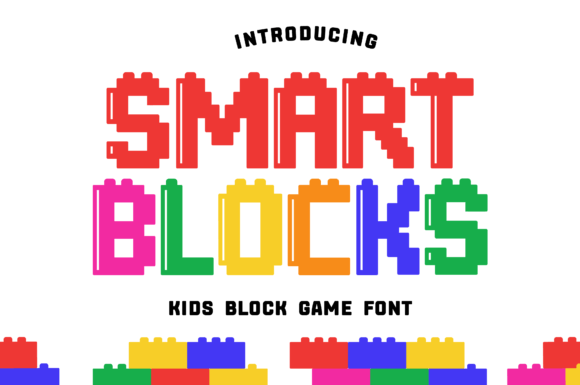
Smart Blocks: The Ultimate Display Font for Modern Design
In the crowded world of typography, finding a free Display font for Fonts that doesn't compromise on quality is rare. Smart Blocks manages to bridge the gap between raw geometric shapes and sophisticated design. It is not just another generic sans-serif; it is a tool designed to bring each of your creative ideas to the highest level. Below, we will dive deep into why this font deserves a spot in your toolkit and how you can utilize it effectively.
Design & Style Analysis
The visual personality of Smart Blocks is defined by its structural integrity and clean lines. Unlike many other fonts in the best Display fonts for use case categories that rely on excessive flair, this typeface relies on perfect proportions. The letterforms are constructed with a consistent stroke width that gives them a solid, reliable presence on any medium.
Letterform Geometry and Weight
At first glance, the weight of Smart Blocks appears uniform, but a closer inspection reveals subtle nuances. The curves are tight, and the terminals are squared off, creating a distinctive character that separates it from softer geometric alternatives. This specific weight distribution makes it an excellent choice for headlines where readability must be maintained even at large sizes.
Spacing and Rhythm
One of the most critical aspects of any professional Fonts font is its spacing. Smart Blocks features generous tracking that prevents letters from feeling cramped. This breathing room allows the text to command attention without overwhelming the viewer. When used correctly, the rhythm of the words creates a visual flow that guides the eye naturally across the page.
Best Uses for Smart Blocks
Understanding where to apply a typeface is just as important as knowing how to style it. Smart Blocks is versatile enough to handle various applications, making it a staple for many creative professionals.
Smart Blocks for Logo Design and Branding
When building a brand identity, you need a mark that sticks. Using Smart Blocks for logo design provides a strong foundation because of its bold, unmistakable shape. It works exceptionally well for tech startups, construction firms, or urban lifestyle brands. Furthermore, Smart Blocks for branding ensures consistency across all touchpoints, from business cards to billboards, maintaining a cohesive visual language.
Smart Blocks for Posters and Social Media
In the fast-paced world of digital marketing, grabbing attention is everything. Smart Blocks for posters/social media/packaging is a powerful combination. Its high contrast and clear shapes ensure that your message is readable even when viewed on small mobile screens. For social media graphics, the font adds a layer of professionalism that elevates the perceived value of your content.
Smart Blocks for Wedding Invitations and Cards
While often associated with industrial themes, this font has a warmth that translates surprisingly well to formal events. Smart Blocks for wedding invitations/cards/typography offers a modern twist on traditional stationery. By pairing it with elegant script accents, you can create invitations that feel both contemporary and timeless, perfect for couples seeking a non-traditional aesthetic.
Font Pairing & Combinations
No single font can do everything alone. To get the most out of Smart Blocks, you need to know what fonts pair well with Smart Blocks. Since Smart Blocks is a heavy Display font, it requires a lighter companion to balance the visual weight.
For a classic editorial look, try pairing Smart Blocks with a high-contrast serif like Bodoni or Didot. The sharp serifs complement the blocky nature of the main font while adding a touch of elegance. Alternatively, for a clean, minimalist interface, combine it with a neutral sans-serif like Helvetica Neue or Lato. This combination is ideal for web headers and body text.
When considering Smart Blocks font pairing, remember that the goal is harmony. You want the display font to shine as the headline while the secondary font handles the details. Some of the best font combinations with Smart Blocks include using a thin monospace font for technical data or captions, which reinforces the architectural feel of the primary typeface.